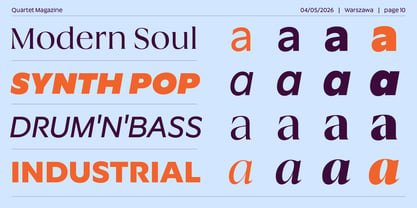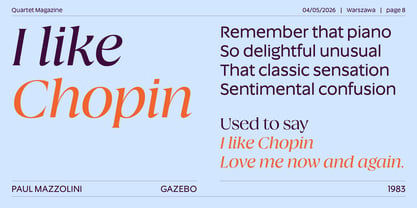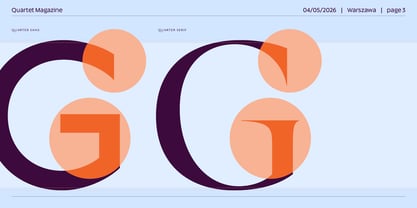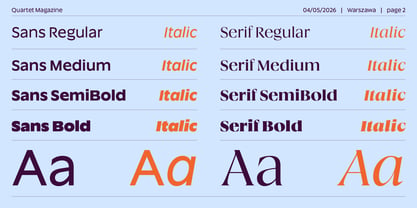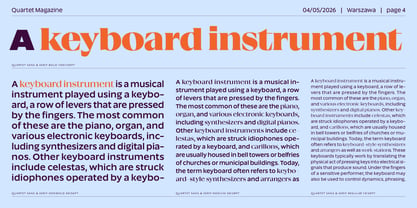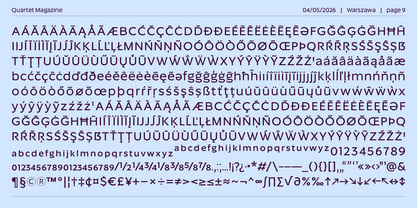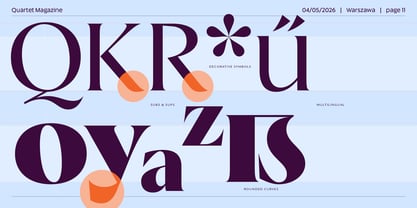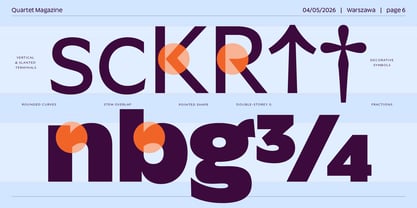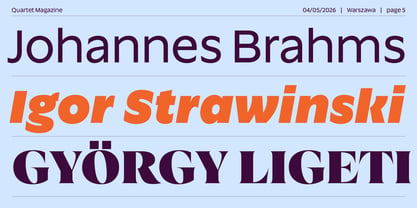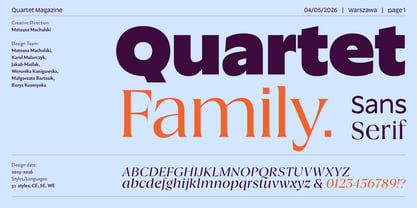
Quartet
La famille de polices Quartet a été conçue par Mateusz Machalski et publiée par Machalski. Quartet contient 16 styles et options de package familial. En savoir plus sur cette famille
In visual identity design, I often find it difficult to find type families that allow for smooth movement between the character of a distinctive sans and a strong, expressive serif while still maintaining a coherent formal language. Quartet was created out of that need, a type system built around contrast, tension, and the interaction between complementary styles. The family is defined by a large x-height, sharp detailing, and a strong visual rhythm. The serif version features a pronounced contrast, allowing it to work naturally alongside the more geometric sans serif counterpart. A wide range of weights together with expressive italics makes it possible to build recognizable, dynamic communication systems and achieve a variety of effects within a single family. Both subfamilies consist of 8 weights accompanied by matching italics. Creative Direction: Mateusz Machalski. Design Team: Mateusz Machalski, Karol Mularczyk, Jakub Maślak, Weronika Kanigowska, Małgorzata Bartosik, Borys Kosmynka.
Dr hab. Mateusz Machalski, Associate Professor (b. 1989) – Vice-Rector for Artistic Affairs at the Academy of Fine Arts in Warsaw. Designer, typographer, lecturer and researcher specializing in visual communication and graphic design. He graduated with Rector’s Honours from the Faculty of Graphic Arts at the Academy of Fine Arts in Warsaw (2009–2014), where he currently teaches at the Multimedia Artistic Creation Studio. Named Designer of the Year 2019 at the Polish Graphic Awards, he has been repeatedly awarded in national and international competitions, including KTR, Ascender 2018 – Type Directors Club New York, MUSTHAVE, The DieLine, Red Dot Design, The Best of Design 2018 – Klub Twórców Reklamy, and Animator 2020 – DESIGN ALIVE. He is a five-time recipient of the Polish Ministry of Culture’s scholarship, a laureate of the Ministry of Science and Higher Education’s scholarship for outstanding young researchers, and of the “Young Poland” programme by the National Centre for Culture. He was awarded the Centennial of Regained Independence Medal by the President of Poland. He is a curator and member of the programme board of the International Poster Biennale in Warsaw, and Art Director of the magazines newonce paper and Warsawholic. He has created more than 80 typeface families – including numerous corporate and multi-script designs – and over 200 visual identities for companies, institutions and cultural events. His fonts are distributed through platforms such as Google Fonts, Adobe and Monotype, and his clients include leading Polish and global brands. He has led teams digitizing key works of Polish typography, including “Półtawski Nowy”, “BRYGADA 1918” (launched at the Presidential Palace), and carried out the long-term “Bona Nova” project together with Andrzej Heidrich – the designer of Polish banknotes. He co-created Typoteka – the first Polish index of typography (1474–2024). Co-founder of the first Polish type foundry – Capitalics. He is also the author of numerous texts, articles and exhibitions on graphic design and visual culture, as well as the “Creative Typography” course published by Design Practice. He conducts research projects, workshops and lectures at universities and conferences in Poland and abroad.